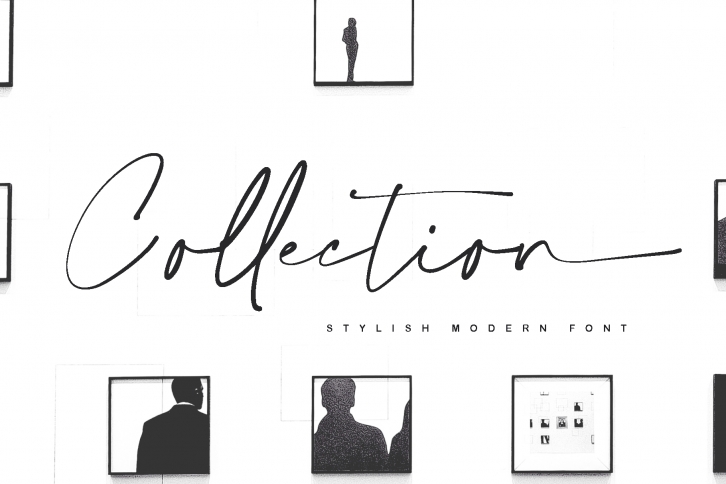
Collection is a great font that was designed by alphArt. Imagine the amount of combinations you can create using this font! The archive is 16.35 MB and it was released on August 27, 2019. Collection looks beautiful on wedding invitations, greeting cards, logos, posters, labels, t-shirt designs, logos, business cards and is perfect for use in ink or watercolor works, fashion, magazines, packaging and food menus, children's books and more!